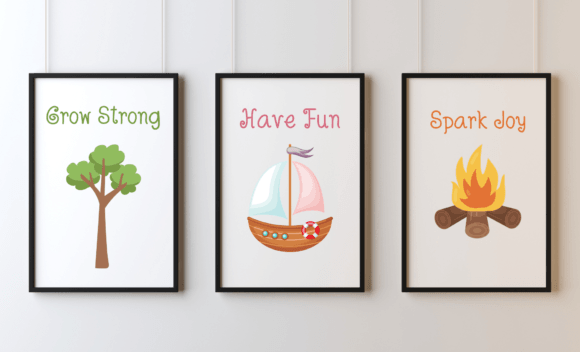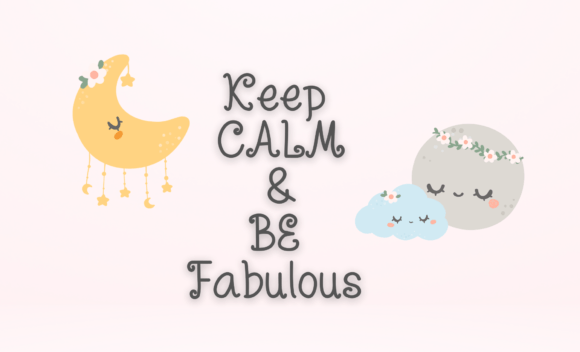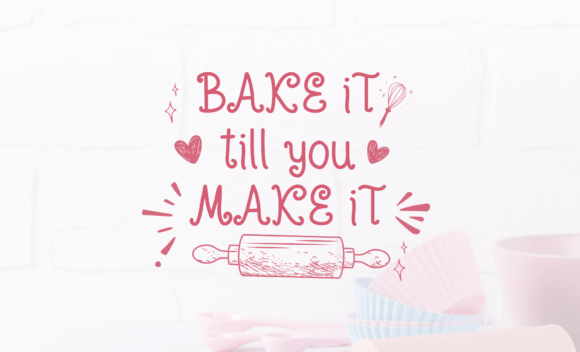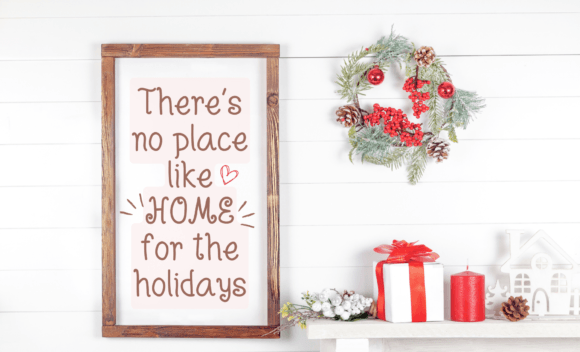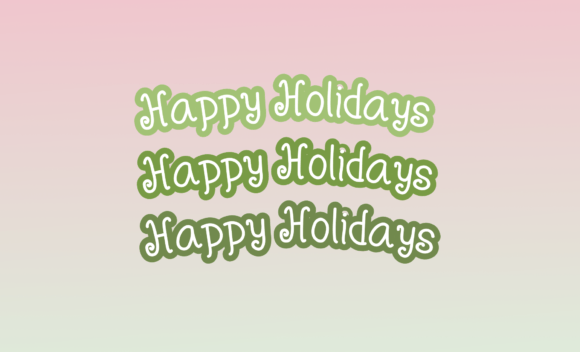
Introducing Carousel Font: The Perfect Handwritten Font for Your Digital Creations
Are you a designer, crafter, or social media enthusiast looking for a font that can add a touch of personality to your digital creations? Look no further than Carousel Font! This adorable handwritten font is perfect for creating visually appealing digital prints, social media quotes, planners, journals, and presentations for any occasion.
What Makes Carousel Font Special?
Carousel Font is a unique and charming handwritten font that is both cute and playful. Its neat and clean design makes it easy to read and perfect for a variety of digital applications. Whether you’re creating a Christmas or Thanksgiving-themed design, or simply want to add some personality to your Facebook and Instagram quotes, Carousel Font is the perfect choice.
Key Features of Carousel Font
• Cute and Playful: Carousel Font has a fun and lively feel that’s perfect for creating engaging and eye-catching designs.
• Neat and Clean: The font’s clean design makes it easy to read and suitable for a wide range of digital applications.
• Handwritten: The font’s handwritten style adds a personal touch to your designs, making them stand out from the crowd.
• Versatile: Carousel Font is perfect for digital prints, social media quotes, planners, journals, and presentations for any occasion.
Uses for Carousel Font
Carousel Font is a versatile font that can be used for a wide range of digital creations, including:
• Digital Prints: Create stunning digital prints for your home or office using Carousel Font.
• Social Media Quotes: Add a touch of personality to your Facebook and Instagram quotes with this adorable font.
• Planners and Journals: Use Carousel Font to create beautiful and functional planners and journals.
• Presentations: Add some flair to your presentations for any occasion, from Christmas and Thanksgiving to birthdays and graduations.
Why Designers and Crafters Love Carousel Font
Designers and crafters love Carousel Font for its unique and charming design. The font’s handwritten style and playful feel make it perfect for creating digital creations that stand out from the crowd. Additionally, the font’s neat and clean design makes it easy to read and suitable for a wide range of digital applications.
Tips for Using Carousel Font
Here are some tips for using Carousel Font in your digital creations:
• Experiment with Colors: Carousel Font looks great in a variety of colors, so don’t be afraid to experiment and find the perfect color scheme for your design.
• Pair with Other Fonts: Carousel Font pairs well with other fonts, so try combining it with a bold font for headings and a clean font for body text.
• Use for Headings and Titles: Carousel Font is perfect for headings and titles, so use it to add a touch of personality to your designs.
In conclusion, Carousel Font is a unique and charming handwritten font that’s perfect for designers, crafters, and social media enthusiasts. Its cute and playful design, neat and clean style, and versatility make it a great choice for a wide range of digital creations. Whether you’re creating digital prints, social media quotes, planners, journals, or presentations, Carousel Font is sure to add a touch of personality to your designs.